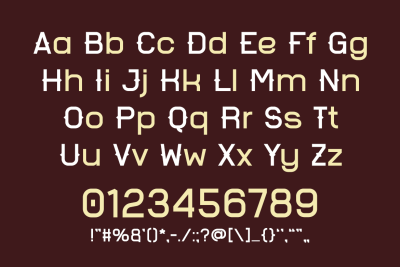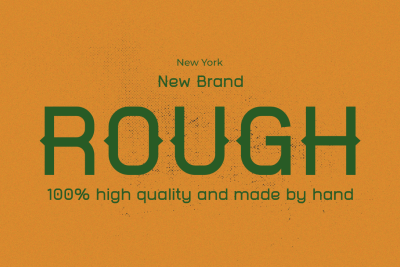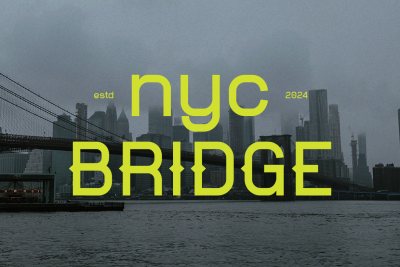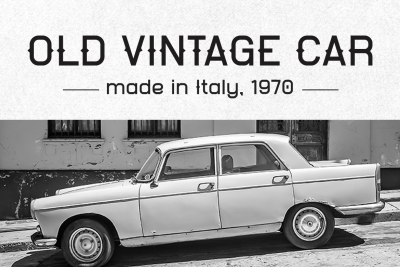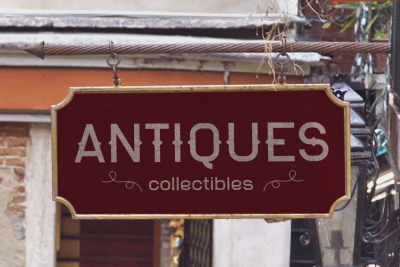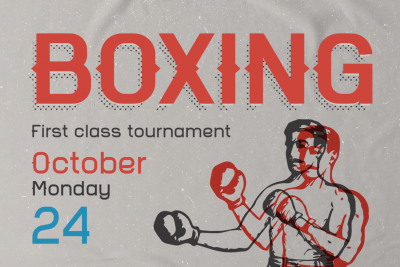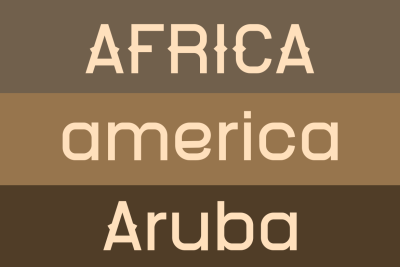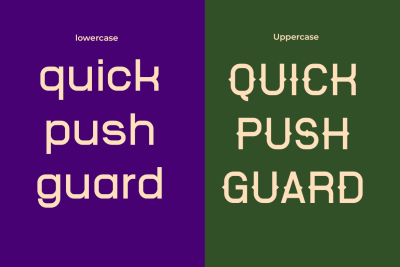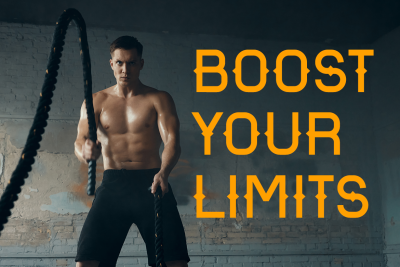
Western Font MACHADO is a sleek, modern typeface with a bold, geometric structure inspired by classic Western typography. Its clean lines and symmetrical shapes create a perfect balance of tradition and contemporary style. Moreover, the font exudes confidence and strength, making it ideal for designs that demand attention while maintaining a refined look.
In addition, MACHADOโs letterforms are striking yet highly legible, offering versatility for various uses. Its subtle Western-inspired details give it a unique personality without overwhelming the design. Whether used for logos, signage, or editorial layouts, MACHADO adds a bold yet sophisticated touch. Furthermore, its innovative yet timeless style ensures it remains a top choice for designs evoking adventure and modernity.
The versatility of MACHADO is one of its strongest assets. While it draws from classic Western aesthetics, it also incorporates a modern, minimalist edge. This allows it to work seamlessly across different themes and industries. Its boldness makes it stand out in print, while its simplicity ensures digital designs remain clean and professional.
Western Font MACHADO Ideal For
MACHADO is perfect for designers seeking a balance between classic Western charm and a modern feel. For example, it works especially well for branding projects, such as logos for outdoor gear brands, modern steakhouses, or tech companies. These industries benefit from the fontโs strength and sophistication, which conveys a sense of trust and boldness.
Additionally, MACHADO is a great choice for event promotions, such as country-themed festivals, adventure-based gatherings, or even modern art exhibitions. Its strong typographic presence ensures designs stand out and grab attention. Moreover, marketers and content creators can use it for posters, banners, and campaigns requiring a contemporary Western vibe.
On social media, influencers and lifestyle bloggers can use MACHADO to add character to their graphics. Its clean, bold style complements themes like travel, exploration, or minimalism. Similarly, graphic designers working on packaging, merchandise, or editorial layouts will find it invaluable for high-impact design work. For instance, it can elevate book covers, product labels, or apparel designs with a strong and cohesive aesthetic.
By combining geometric precision with Western charm, MACHADO is a versatile typeface. Consequently, it is perfect for projects needing bold visuals with a touch of modern sophistication. Therefore, this font is a must-have for anyone looking to create standout designs. Whether for personal or professional use, MACHADO ensures your work leaves a lasting impression.